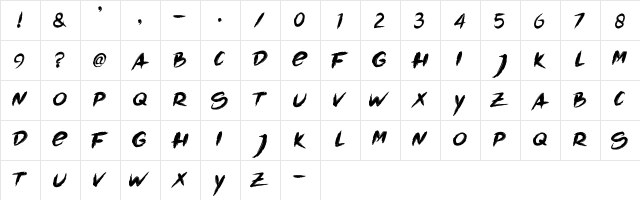
The Bronkids Regular
| Designer | Blue Studio |
Design Context for The Bronkids Typeface
The Bronkids trades formality for fun, with bouncy, characterful letterforms that bring warmth and energy to any project.
Font Pairing: Pairs well with a rounded or humanist sans for body copy, maintaining the friendly tone without relying on The Bronkids to carry extended reading.
Pro Tip: Avoid using The Bronkids for long passages of text — it works best for headlines, labels, and short calls to action.